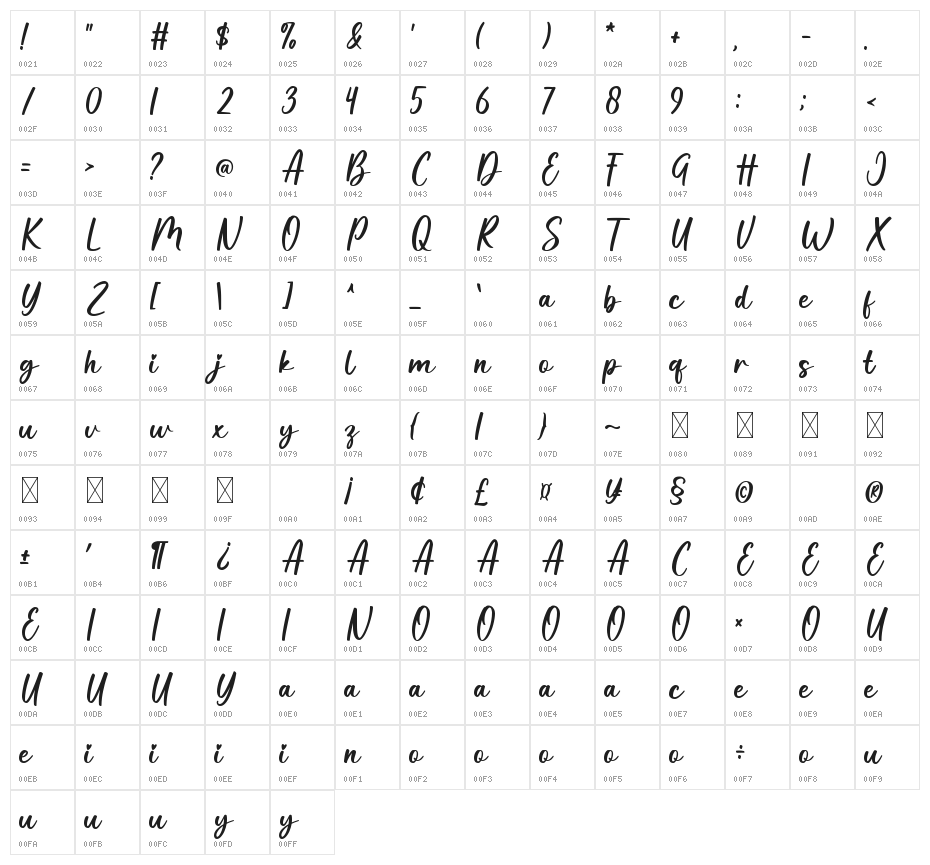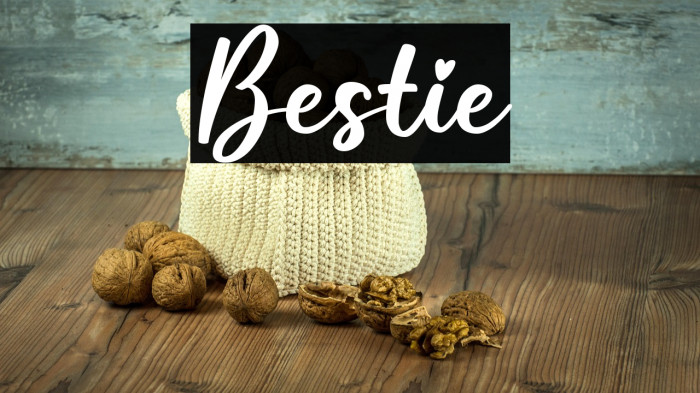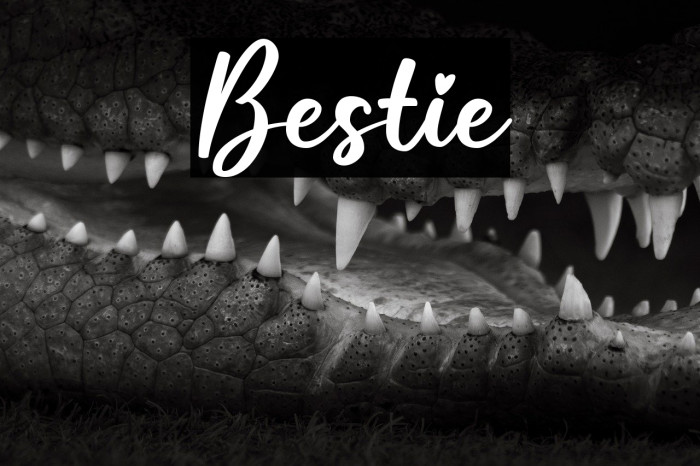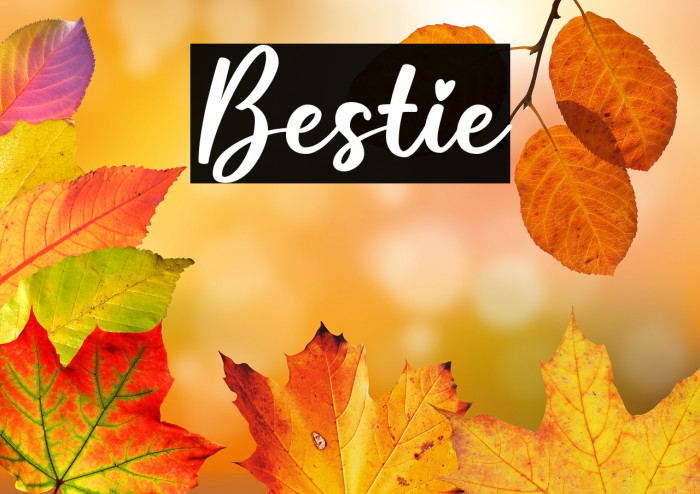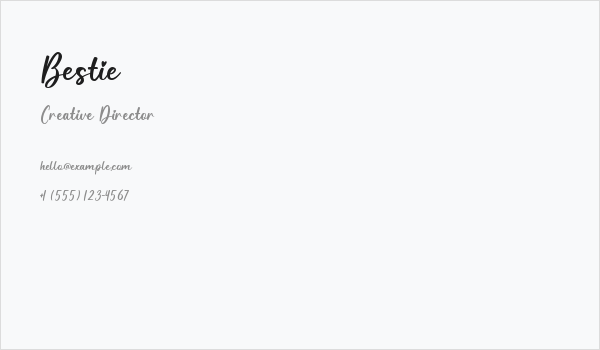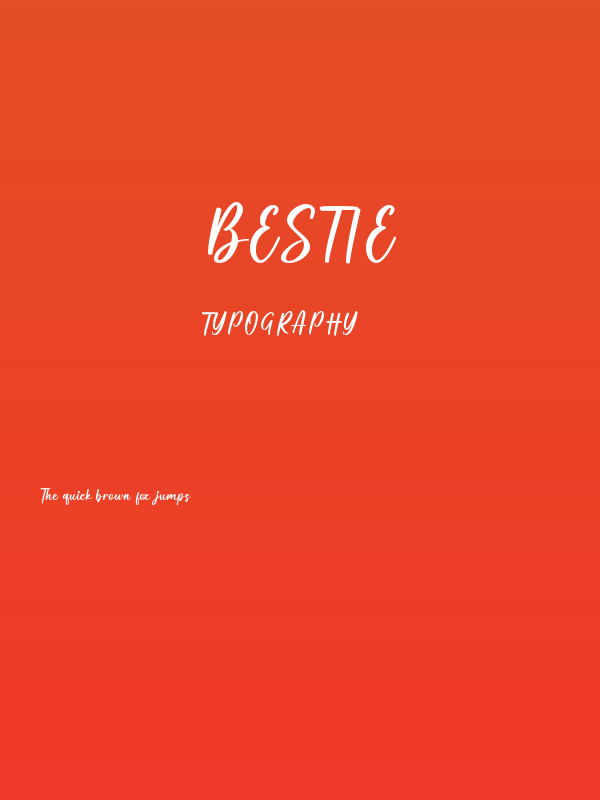
Bestie Font
Bestie Description
This font features a lively and flowing script style, characterized by its smooth, cursive strokes and playful appearance. The uppercase letters are bold and slightly slanted, giving a sense of movement and energy. The lowercase letters maintain a consistent flow with rounded forms and occasional loops, adding to the font's charm. Numbers and special characters are designed to match the overall script style, ensuring a cohesive look across all elements. The font's design is both modern and approachable, making it suitable for a variety of creative applications.